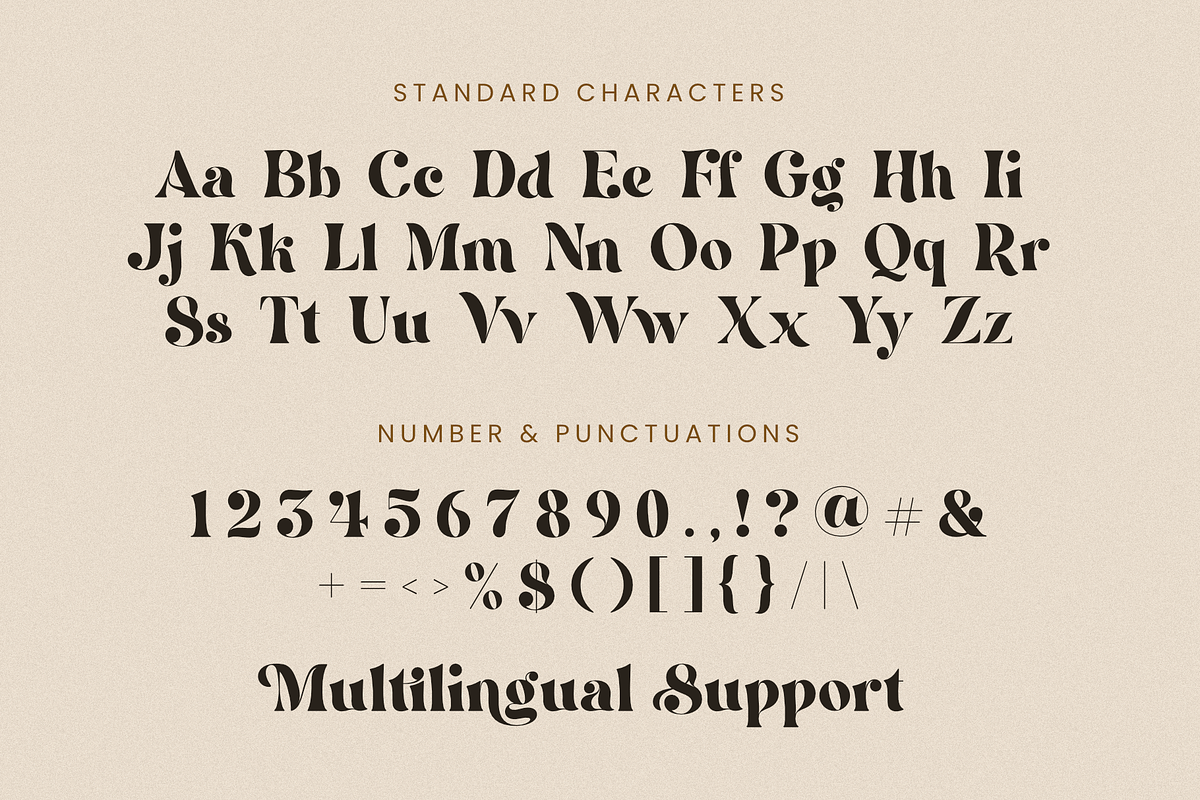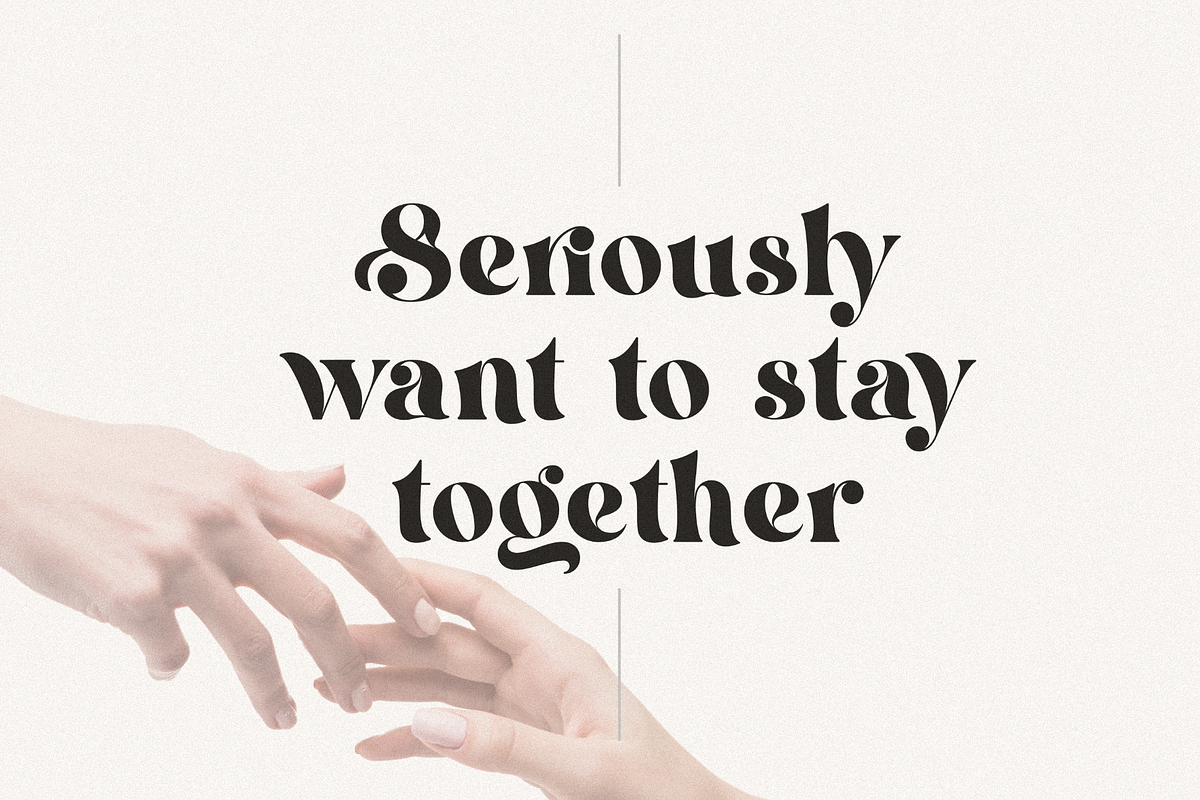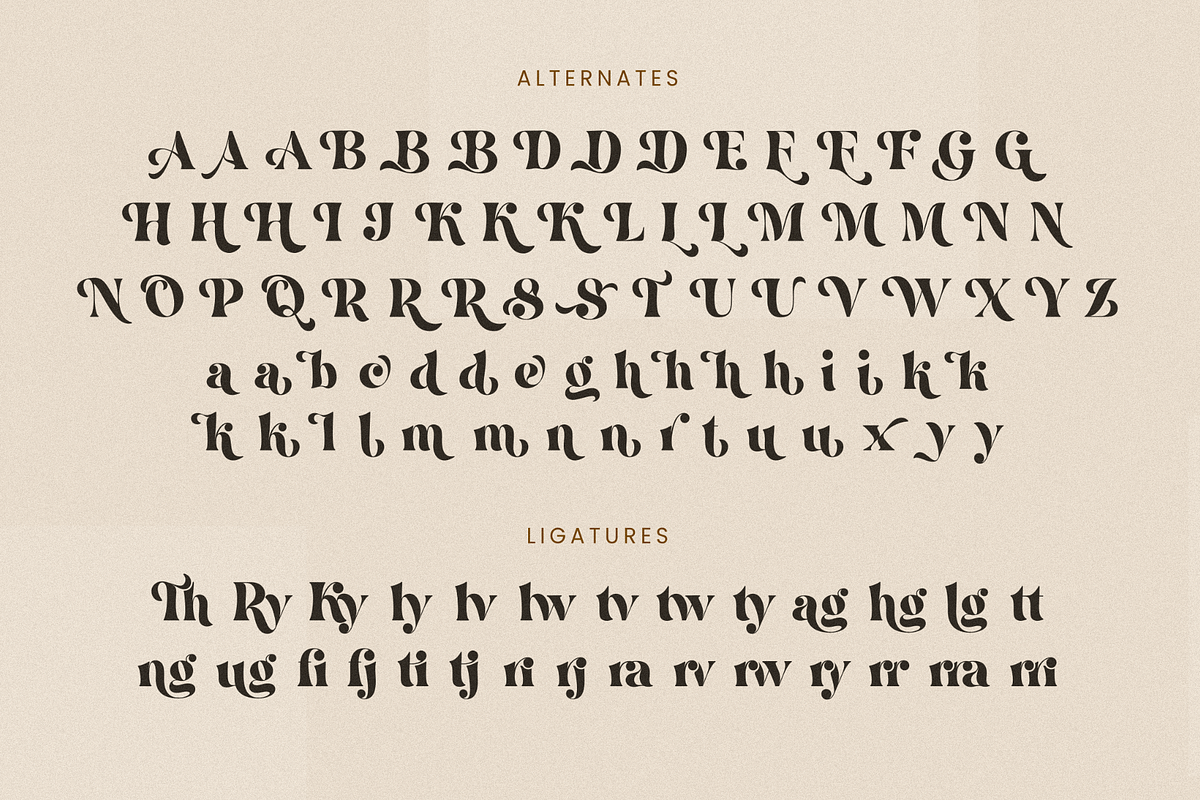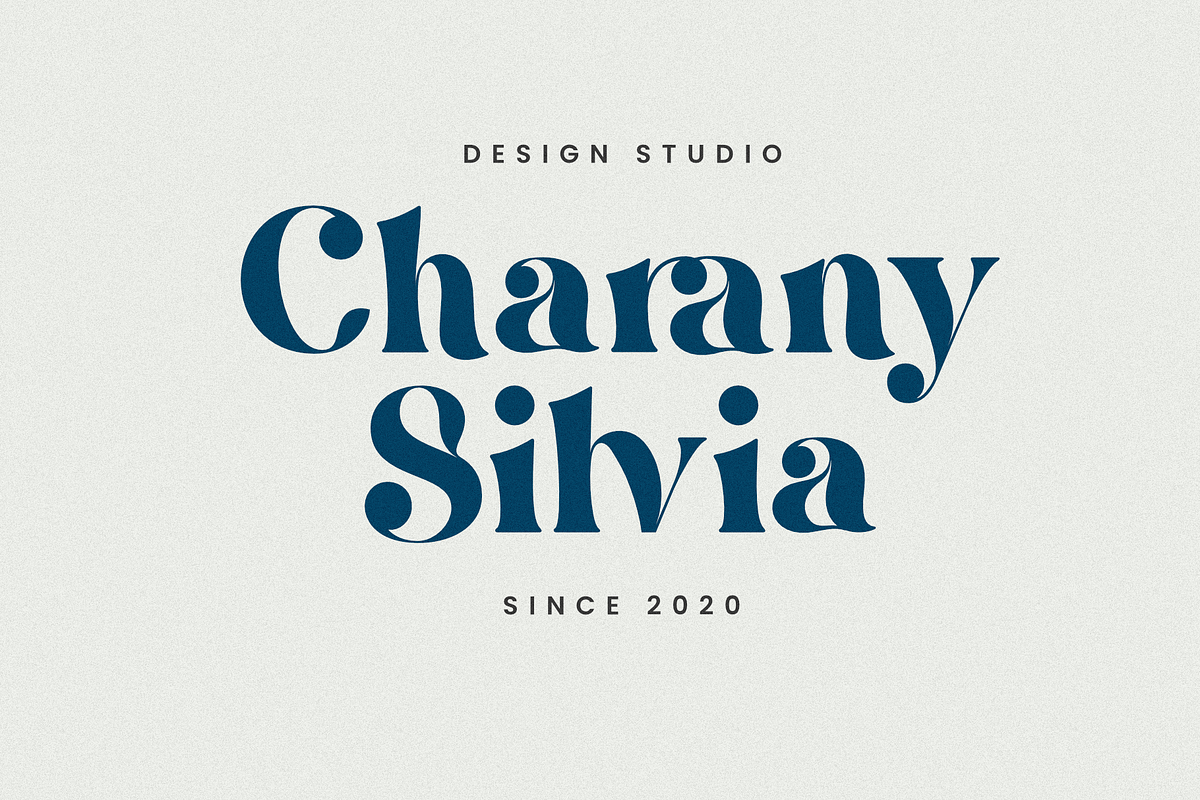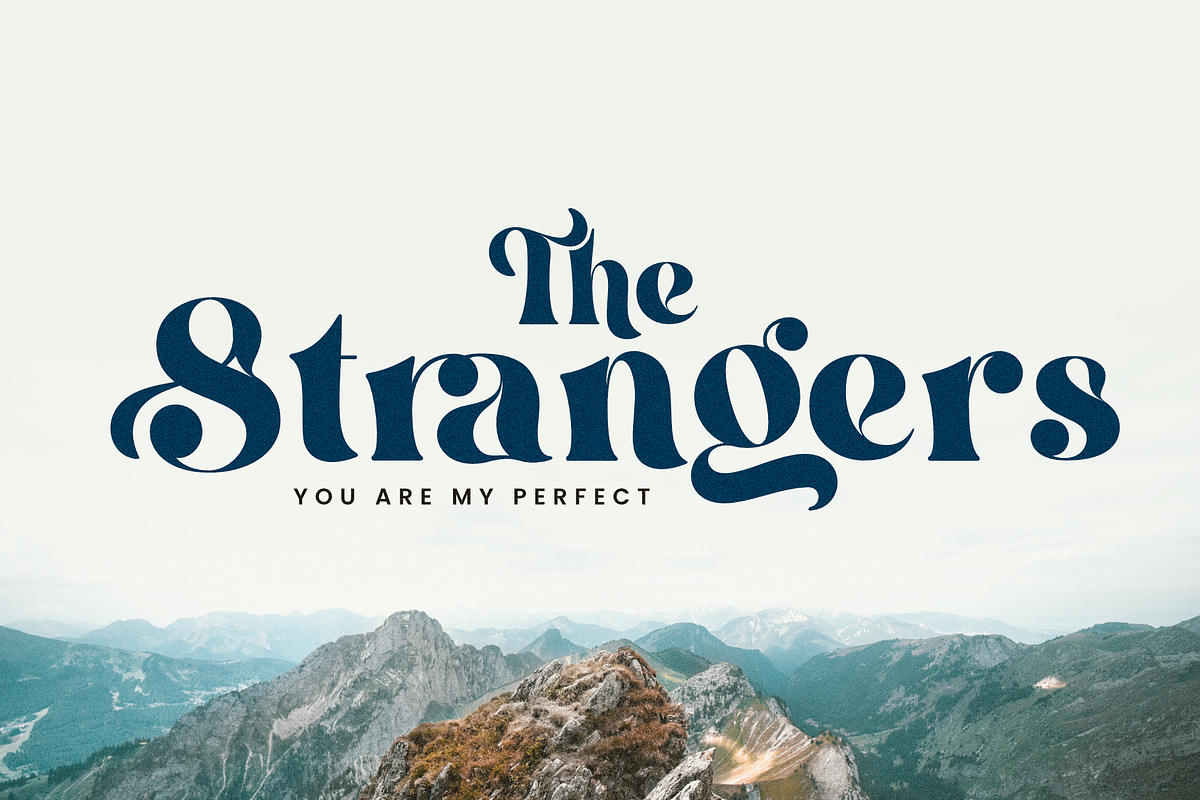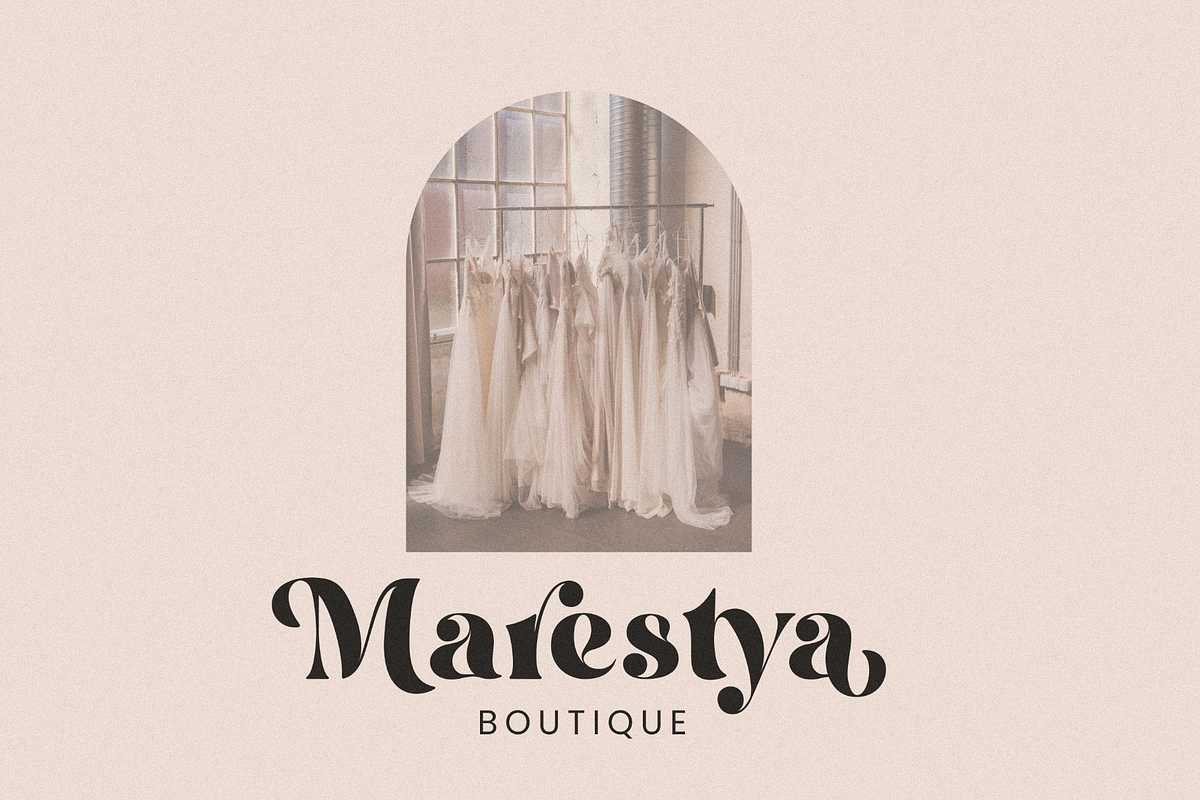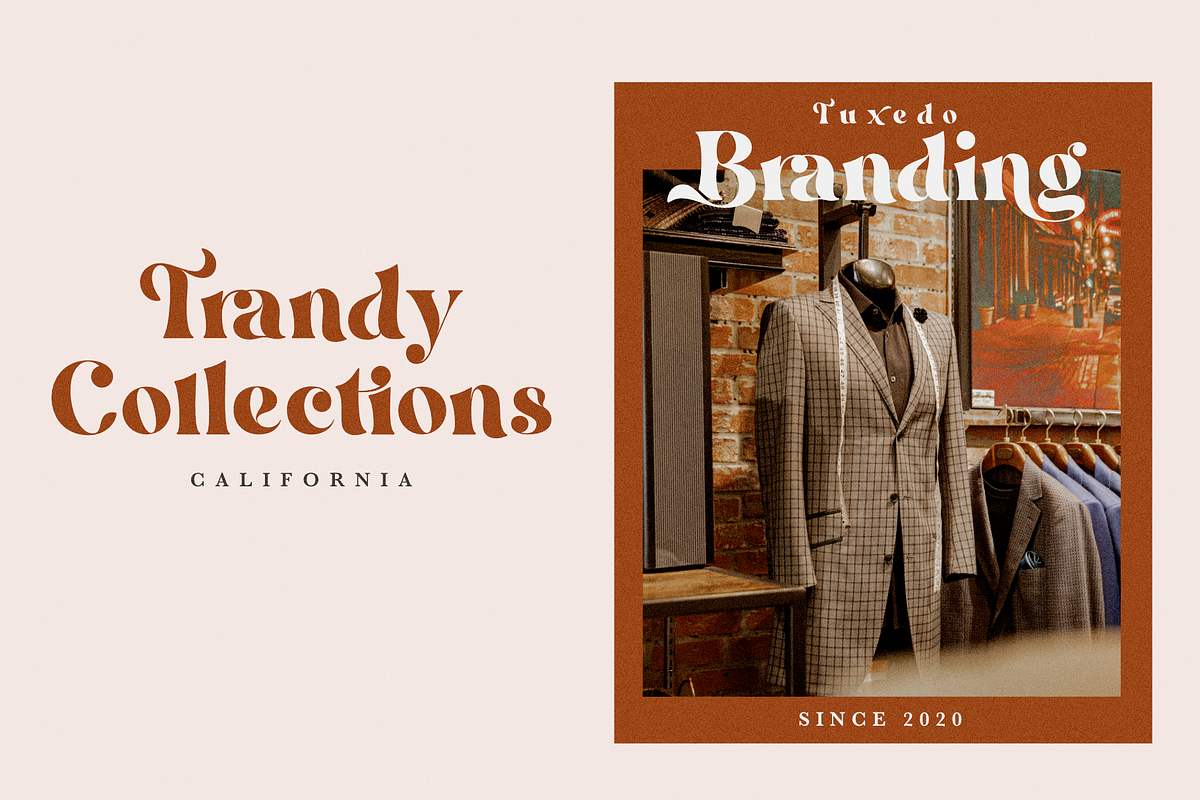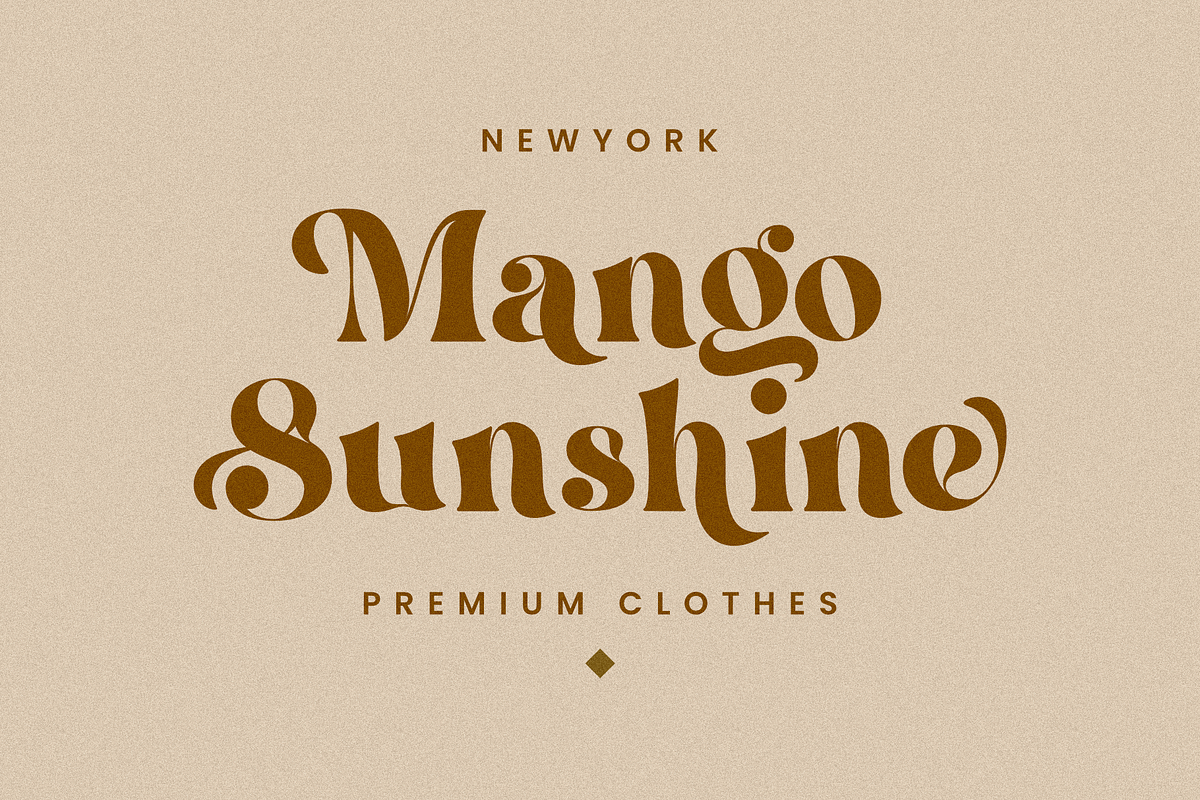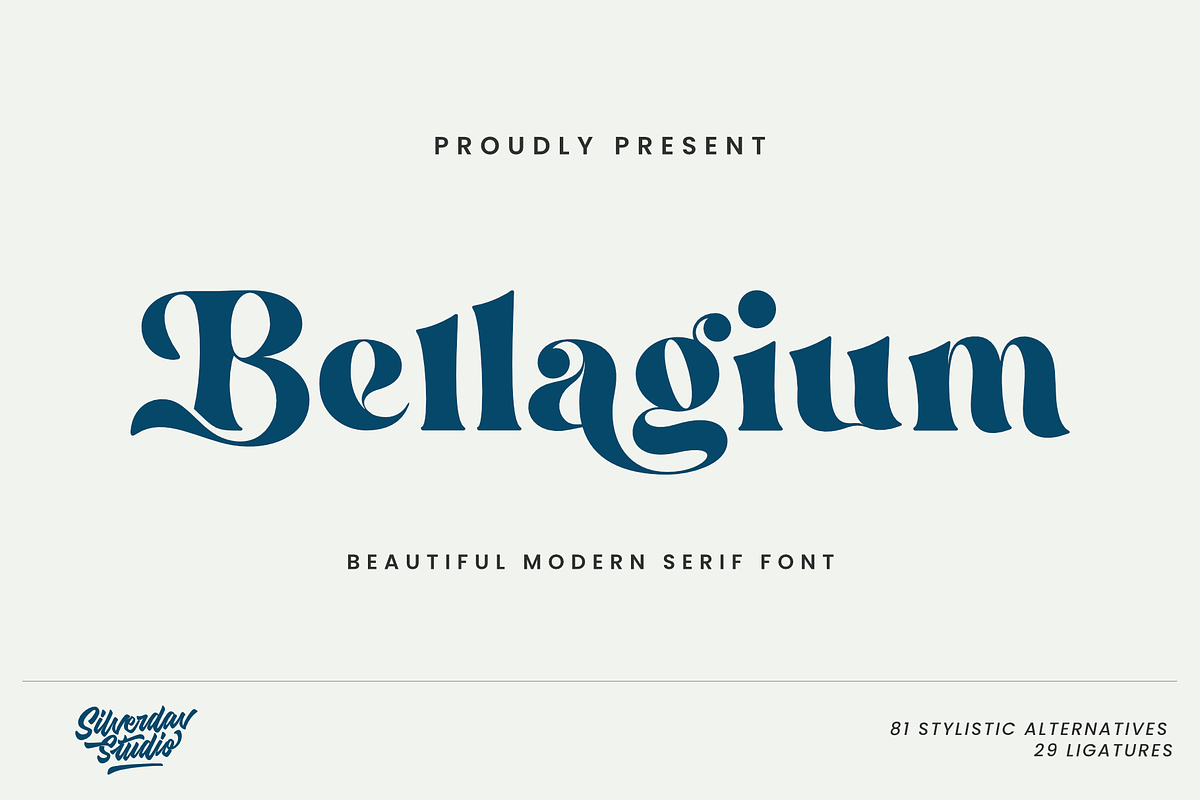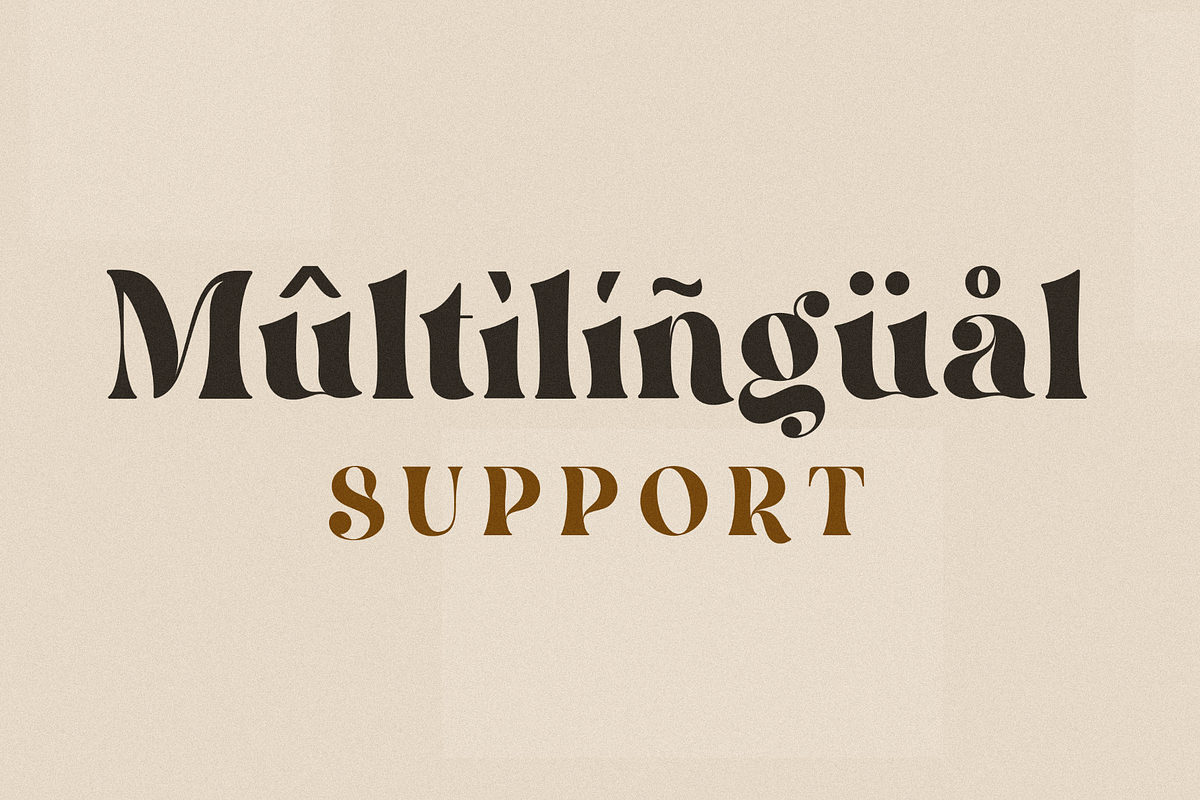
Kongfilk - Modern Serif Font
Introducing "Kongfilk font" is a truly unique serif font, with a more modern style and unique curves that add a special and glamorous feel to your designs.
There are lots of alternatives that you can use to make your designs more beautiful and charming, plus ligatures, of course, your designs will be more charming.